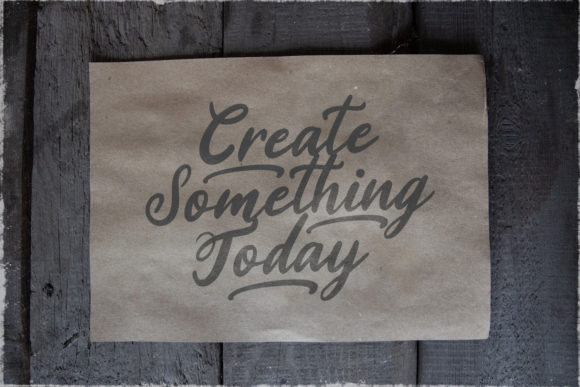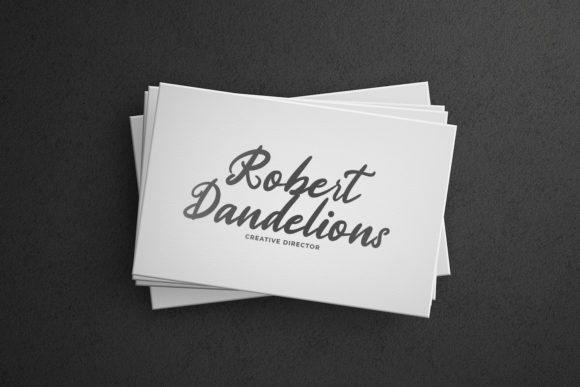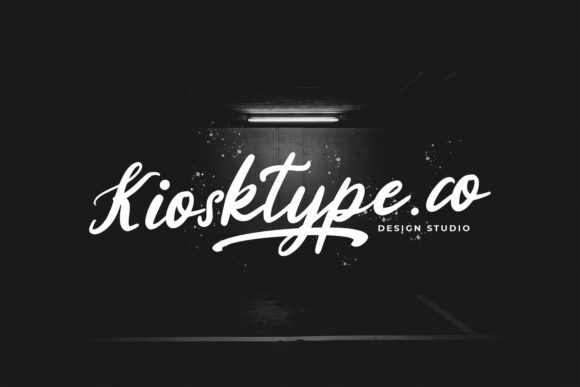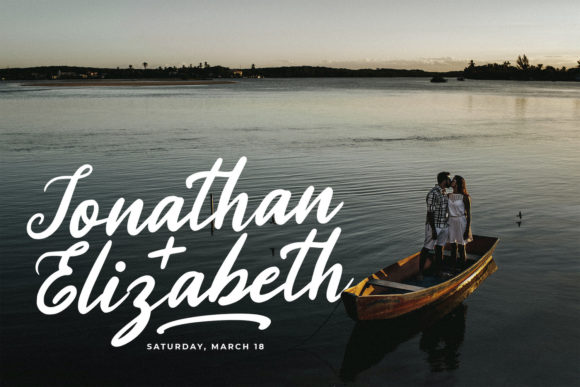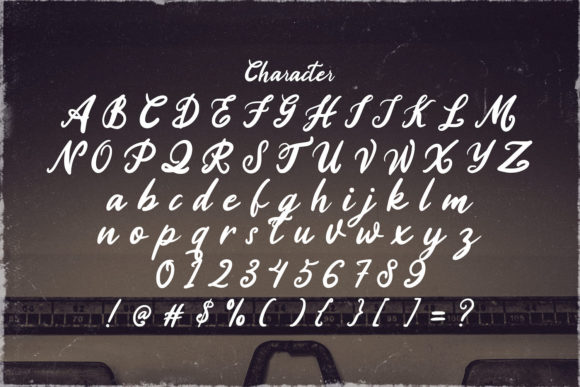
About The Stranger Font
The Stranger is a marvelously elegant and flowing handwritten font, perfectly designed to look unique and authentic! It is perfect for delicate projects such as wedding invitations, birthday cards, or other projects that need a personal note. This font is PUA encoded which means you can access all of the glyphs and swashes with ease!